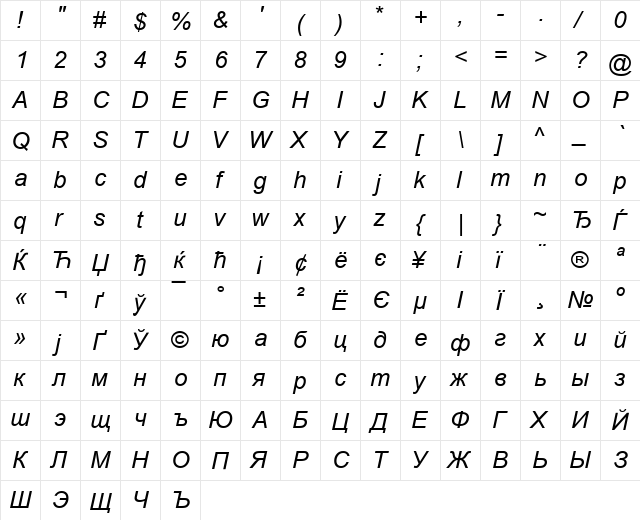
Arial KOI8 Italic
| Designer | Monotype Type Drawing Office - Robin Nicholas, Patricia Saunders 1982 |
Design Context for Arial KOI8 Typeface
Arial KOI8 is a composed and adaptable typeface that performs quietly and consistently across a wide range of design contexts. The slanted form adds forward momentum and visual energy.
Pro Tip: Try Arial KOI8 for annotation and caption copy alongside an upright companion — the contrast in angle creates a dynamic but ordered typographic system.